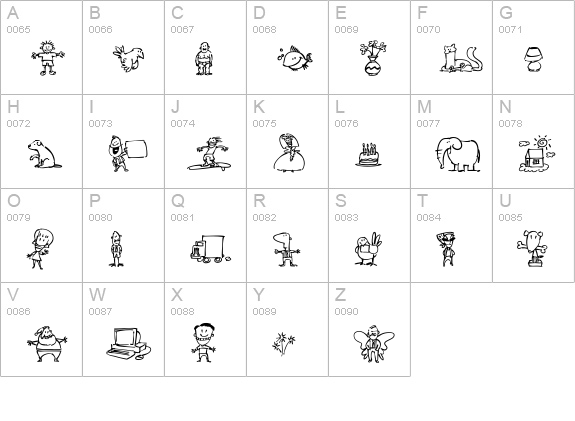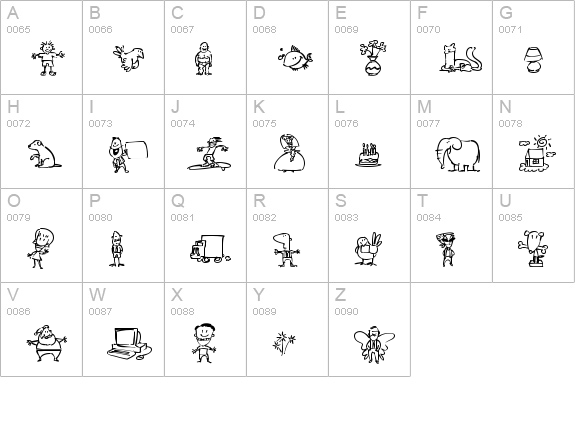
The Minimum Wage! (incomplete) font is a unique and quirky typeface that adds a touch of creativity to any design project. With its playful and unfinished look, this font is perfect for creating eye-catching headlines, posters, and more. The incomplete style of the font gives it a modern and edgy feel, making it stand out from the crowd. Featuring a range of characters and symbols, Minimum Wage! (incomplete) font allows you to express your creativity and individuality in your designs. Whether you're working on a branding project, a social media graphic, or a website design, this font is sure to make a statement. Best of all, Minimum Wage! (incomplete) font is freely available to download at FontsMarket.com. So go ahead and add this bold and dynamic font to your collection today!